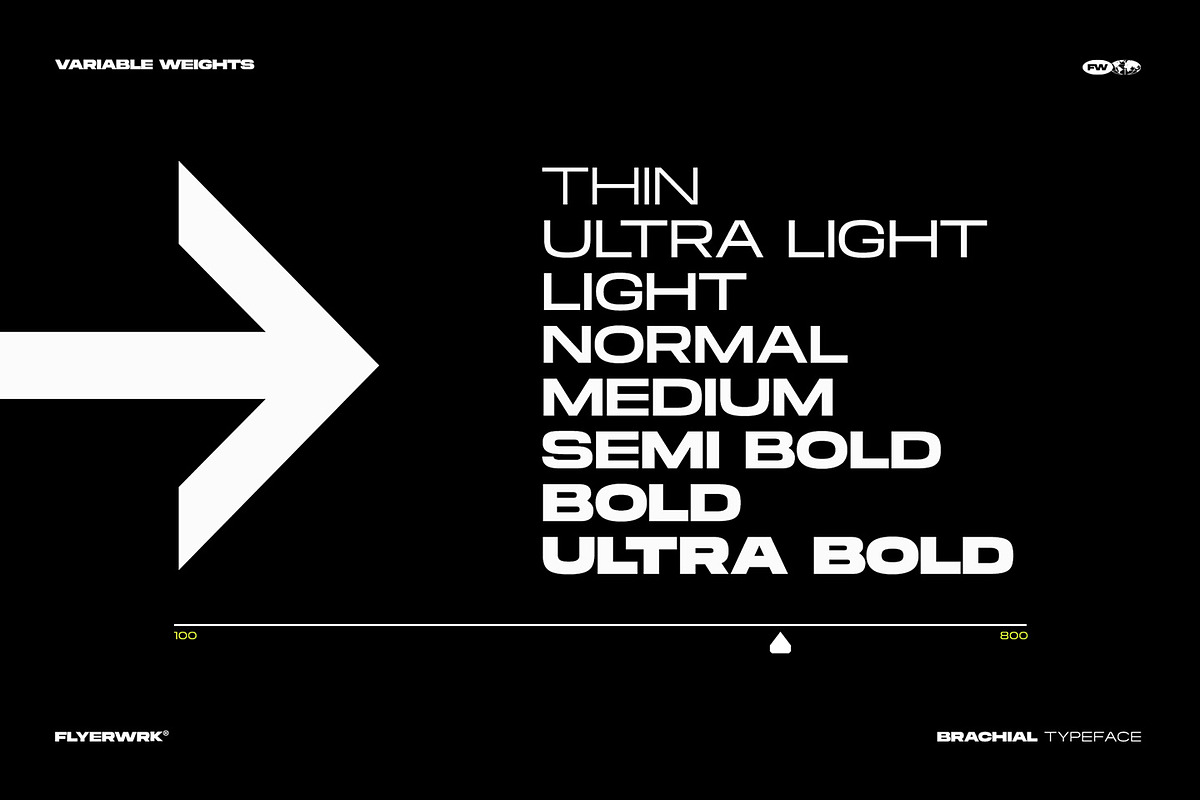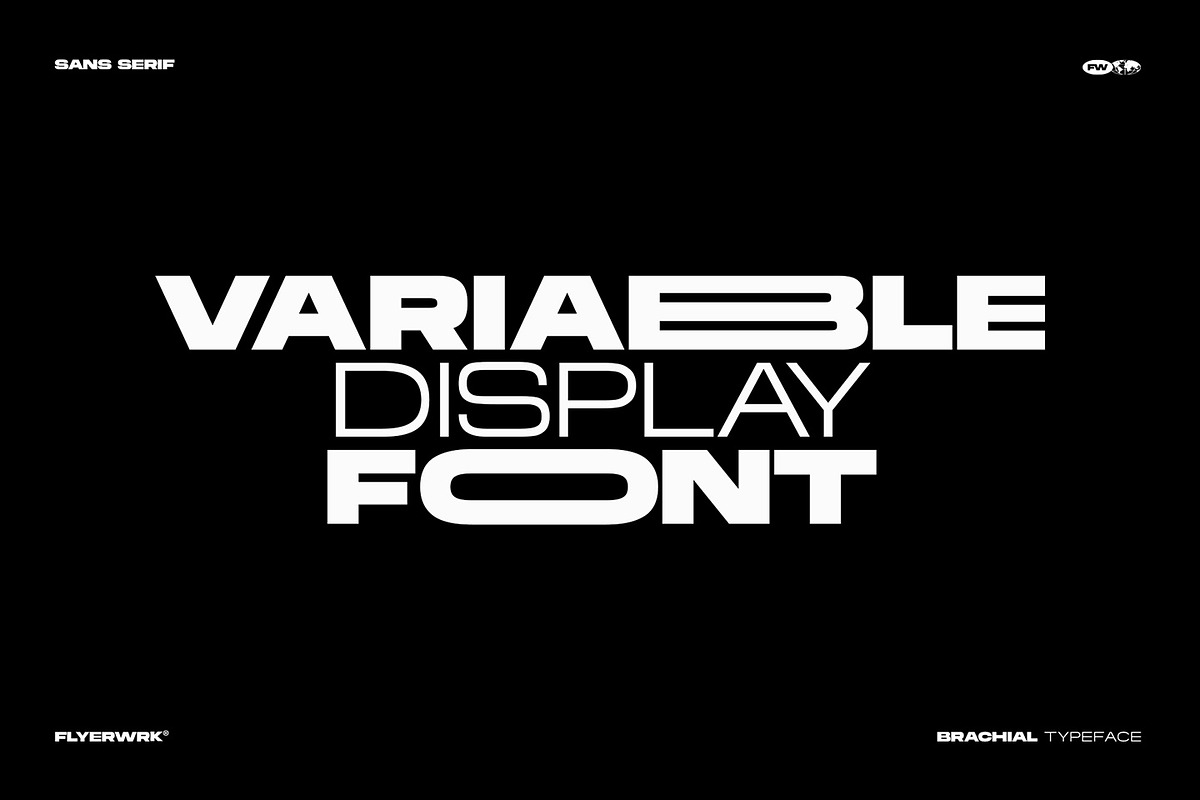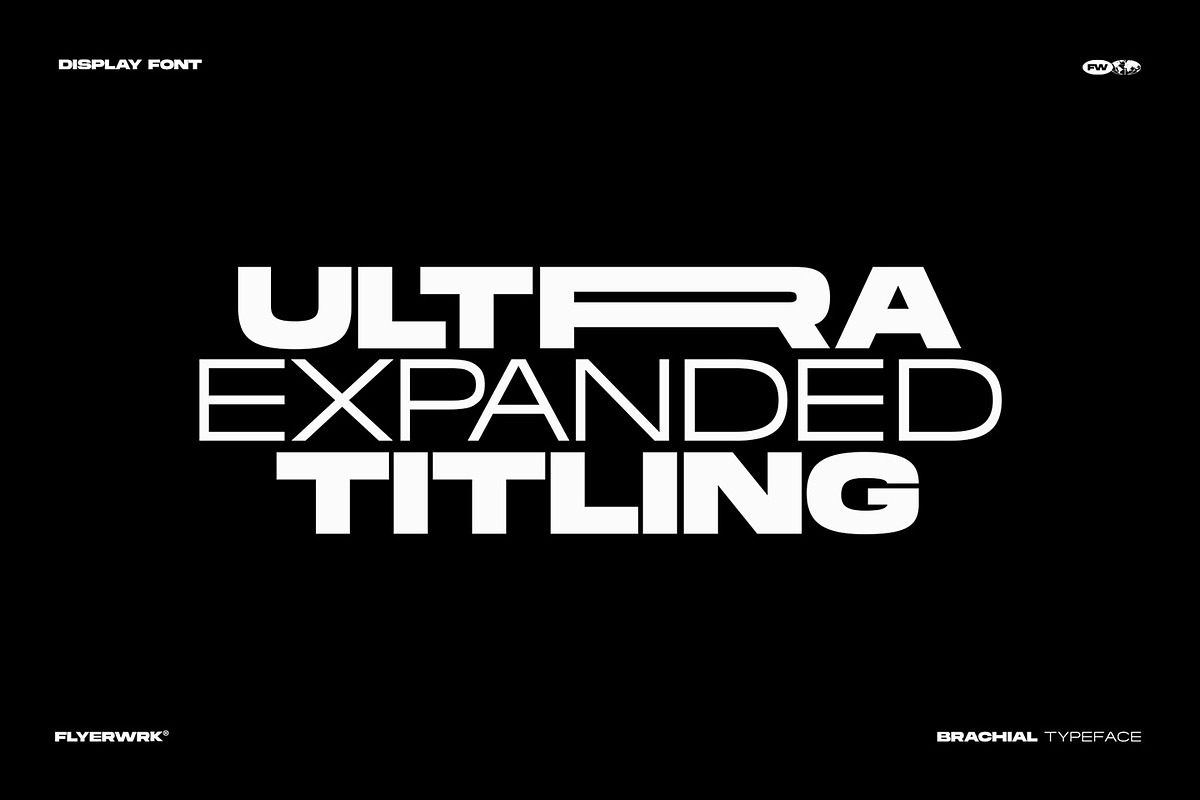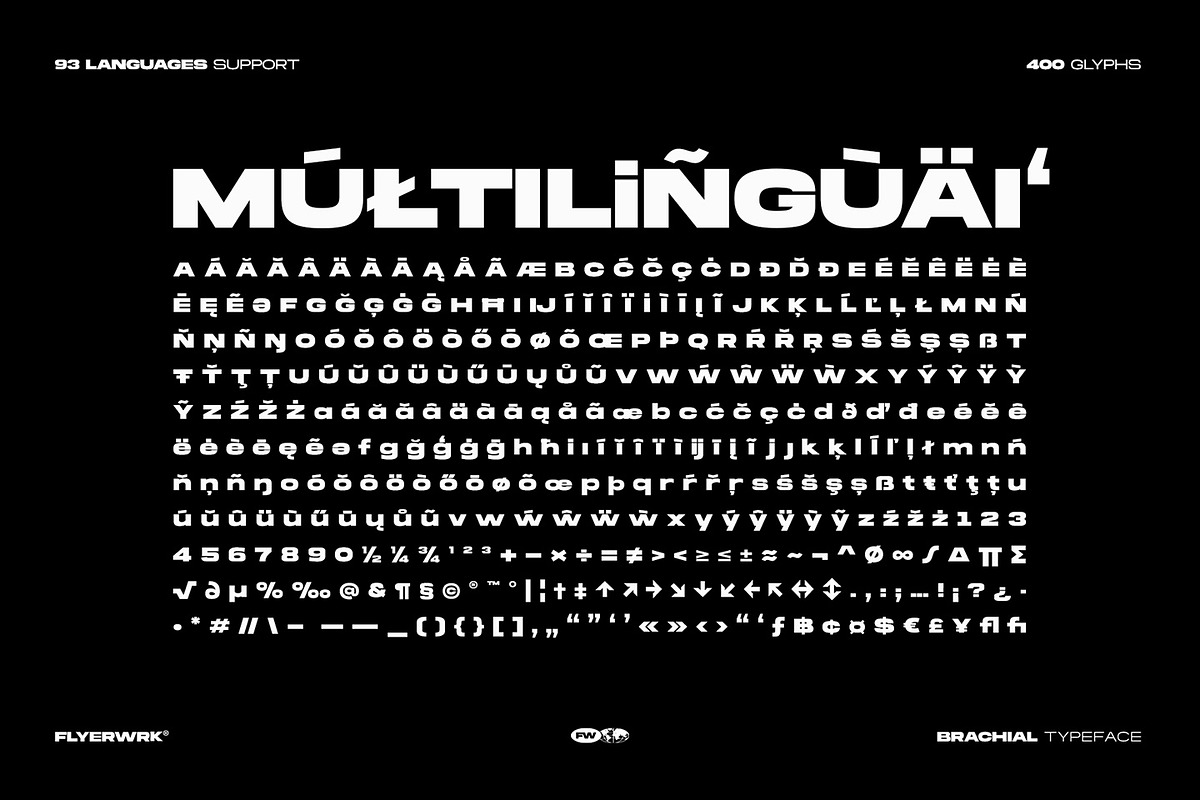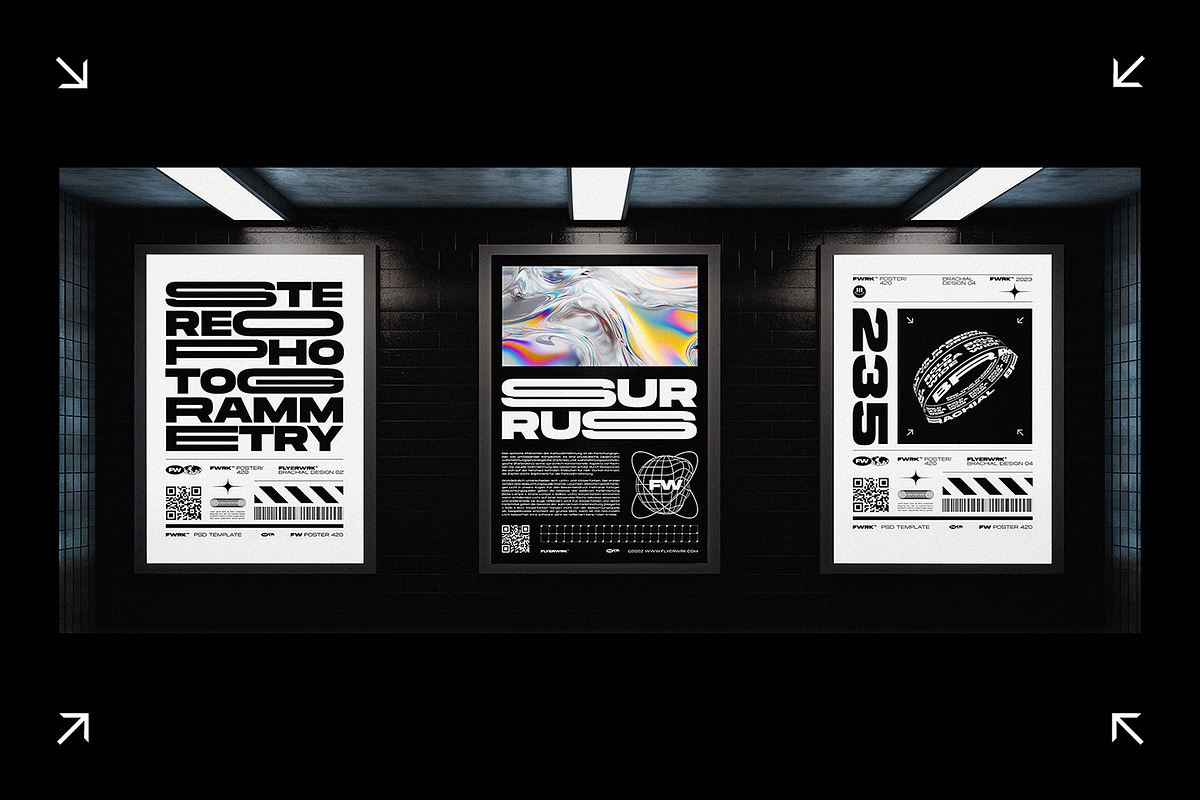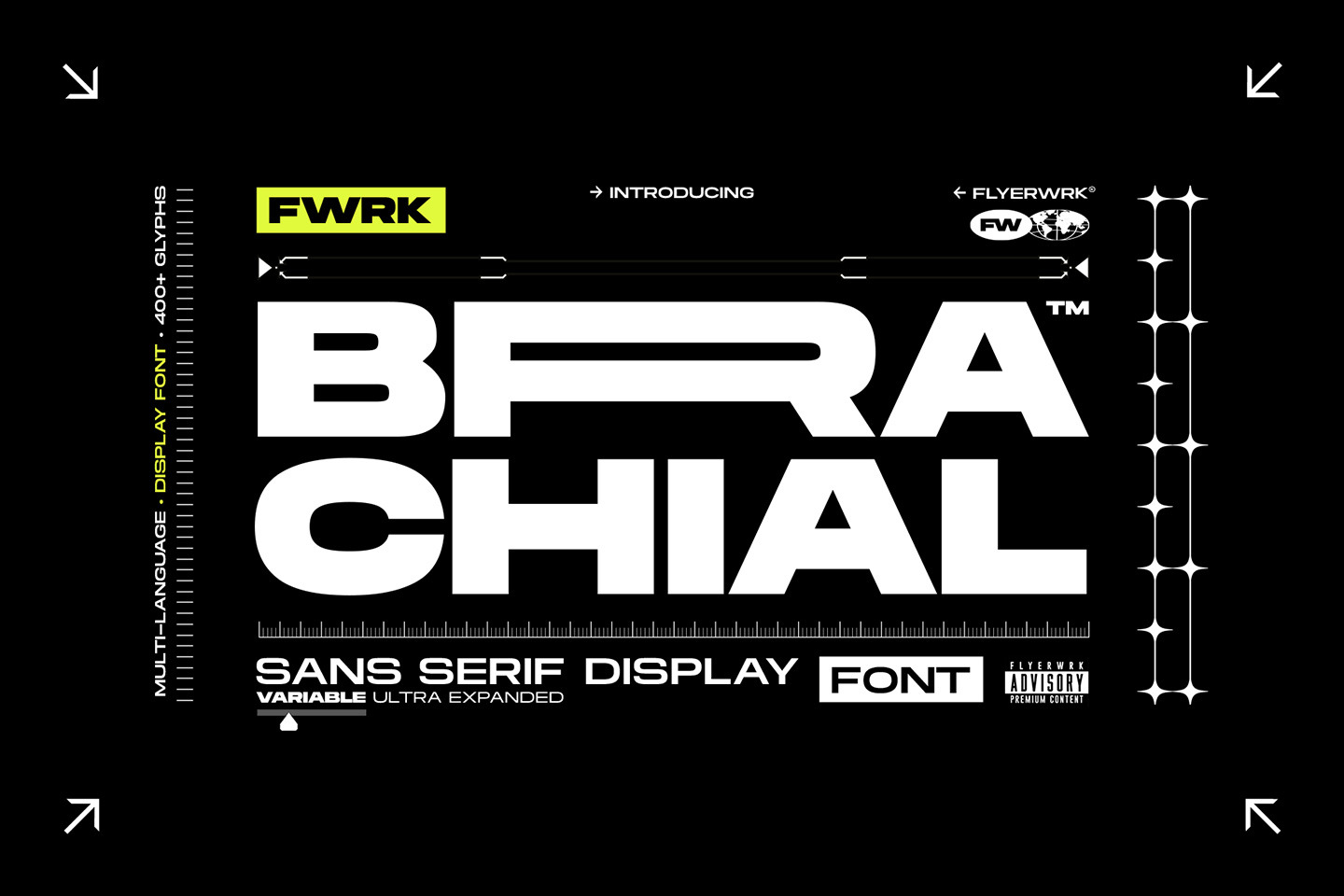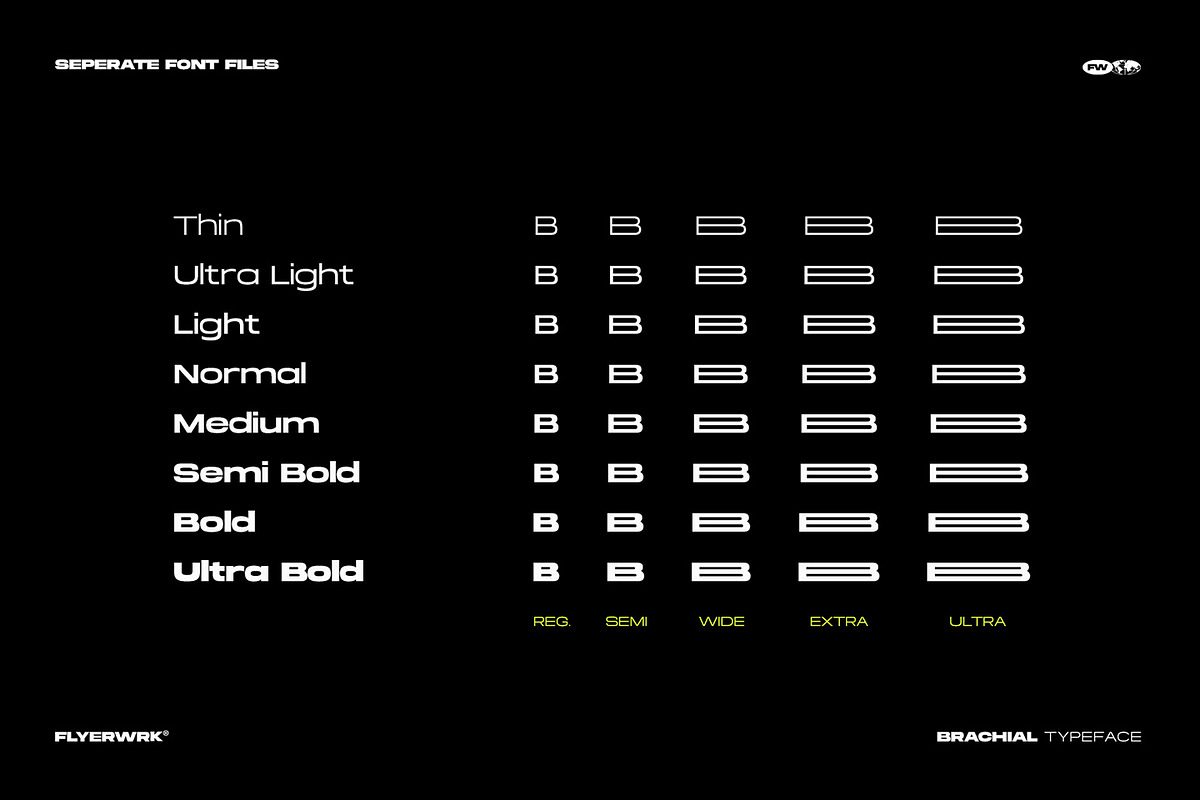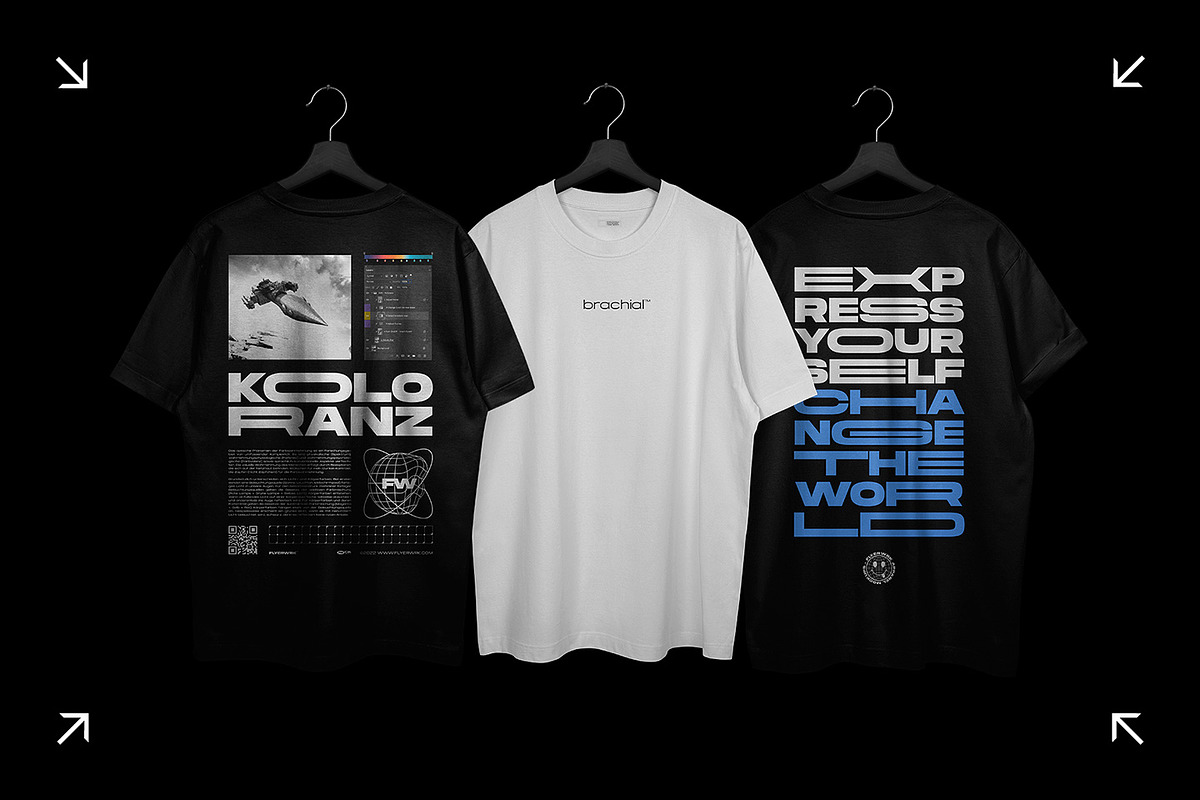
Brachial - Ultra Wide Font
Introducing Brachial: The Typeface That Defies Boundaries!
Awaken your inner design maverick with Brachial, the ultra-wide geometric sans-serif typeface that boldly dares to break the mold. Crafted to dominate the creative scene, Brachial is the ultimate tool for artists seeking the extraordinary.
Inspired by the rad vibes of retro-futuristic design, the unapologetic style of Brutalist architecture, the trailblazing spirit of the Bauhaus movement, and the innovative flair of the early modernist era, Brachial will bring an electrifying surge to your projects.
Picture this: you're on a mission to create the boldest headlines, the most commanding titles, and the most captivating logos. And with Brachial, you'll have the ultimate weapon to conquer the design world. This attention-commanding typeface is like a power-up that'll level up your typographic game.
Whether you are designing for branding projects, editorial work, or poster and album covers, Brachial is the ultimate choice for creating unforgettable designs.
Fear not, global creatives! With multilingual support and 400 glyphs to choose from, you're covered. You'll have everything you need to leave your mark on the design landscape.
Brace yourself for an avalanche of options, as Brachial boasts 40 distinct fonts with five widths and eight weights each. And guess what? We've included a separate variable font file, so you can mix and match widths and weights like a DJ spinning the coolest typographic tunes.
- Multi-language support
- Over 400 glyphs in the advanced Latin character set
Brachial is not just a typeface; it's a declaration of creative freedom. With its limitless possibilities, it's the key that unlocks the door to unbridled artistic expression. So, grab Brachial today and embark on a journey where your creativity knows no bounds!